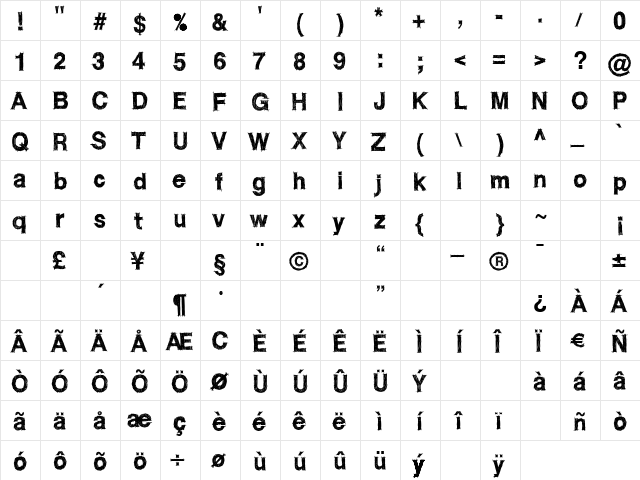
WC ROUGHTRAD BETA Bold
Design Context for WC ROUGHTRAD BETA Typeface
WC ROUGHTRAD BETA embraces imperfection — its rough, textured character adds raw authenticity to designs that want to feel lived-in and unconventional.
Suited to punk-influenced zines, underground music branding, streetwear, and raw, anti-corporate design.
Pro Tip: Pair WC ROUGHTRAD BETA with intentionally raw or lo-fi design elements. Fighting against it with overly polished surroundings will undermine its personality.